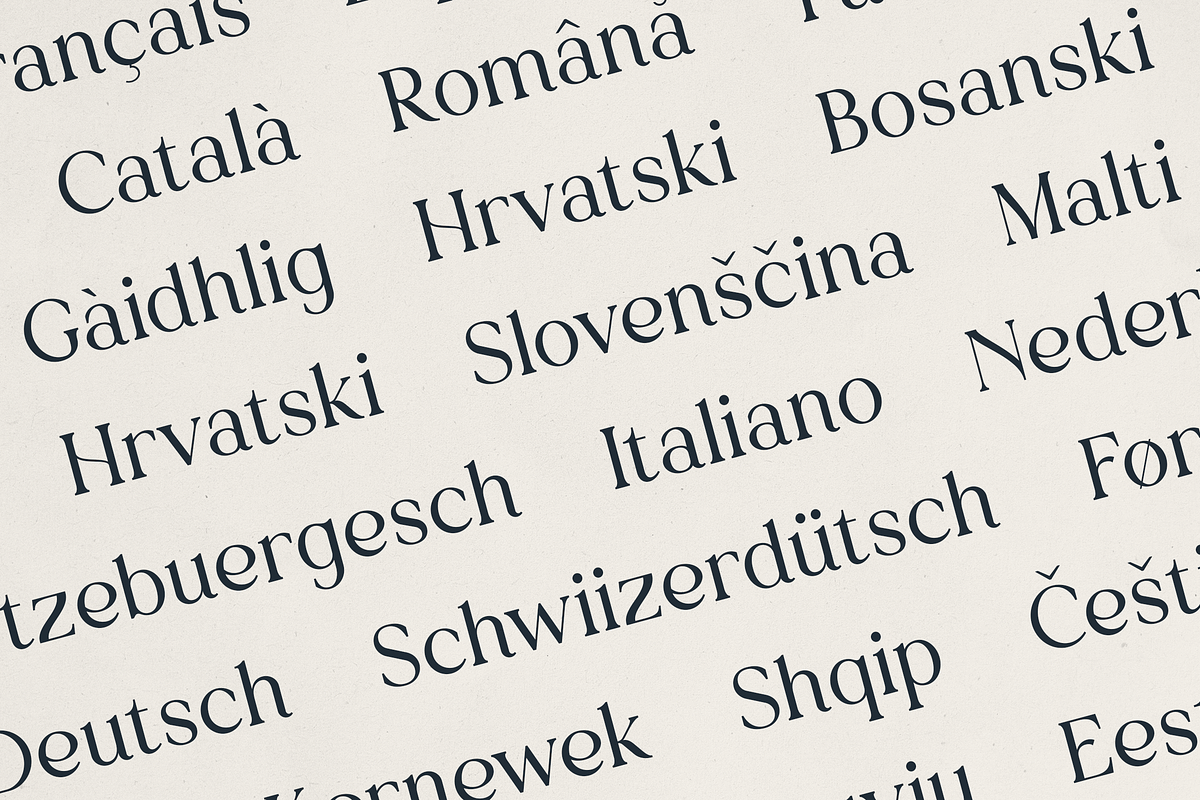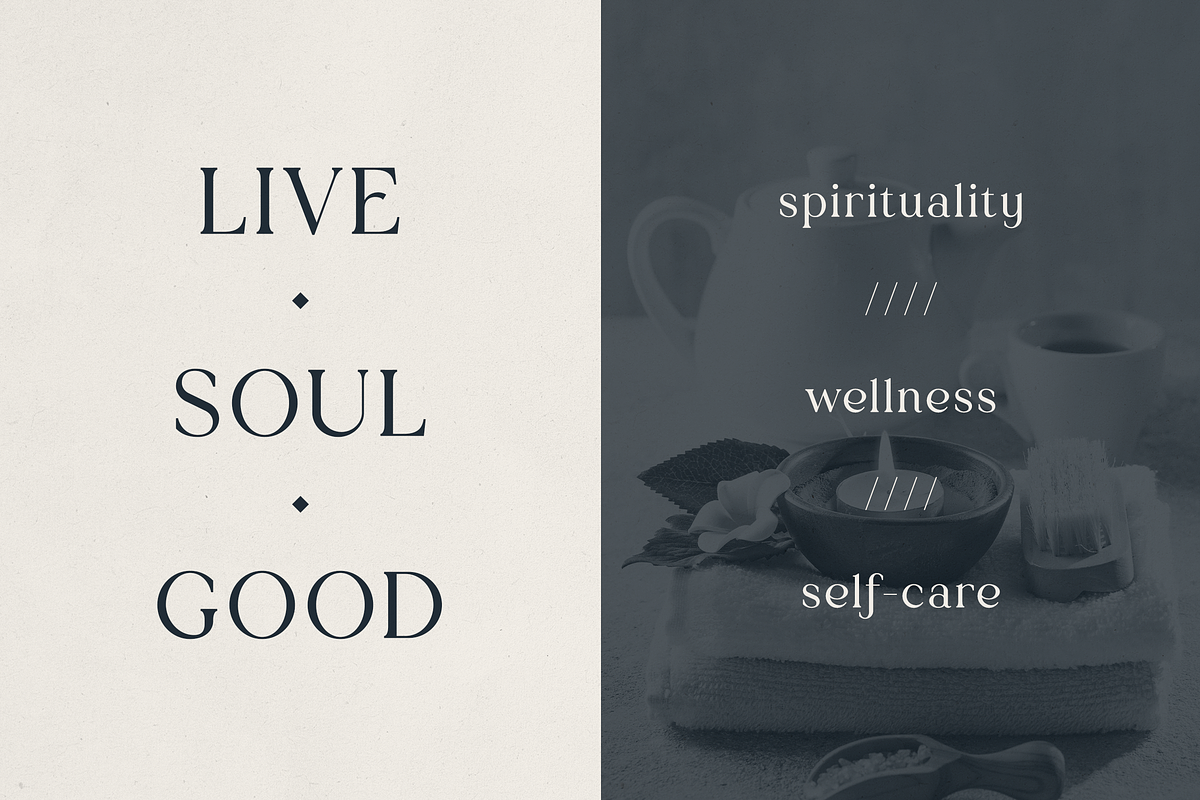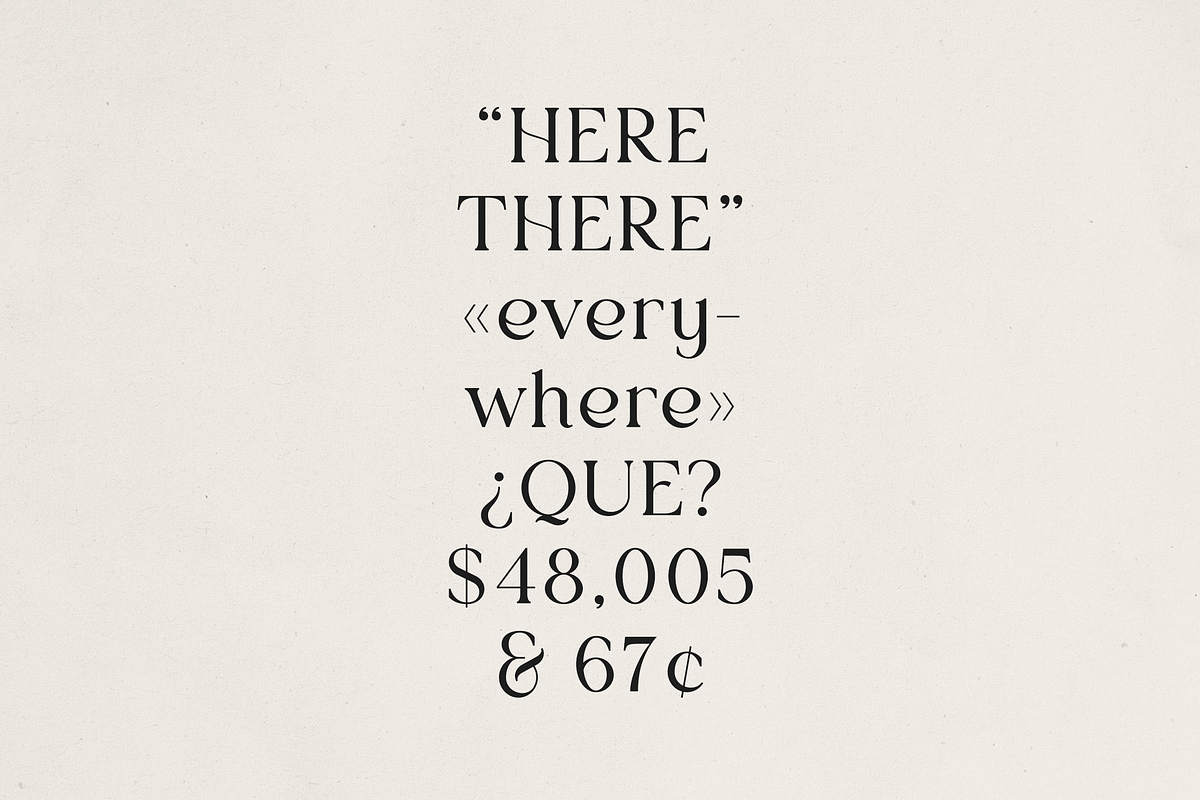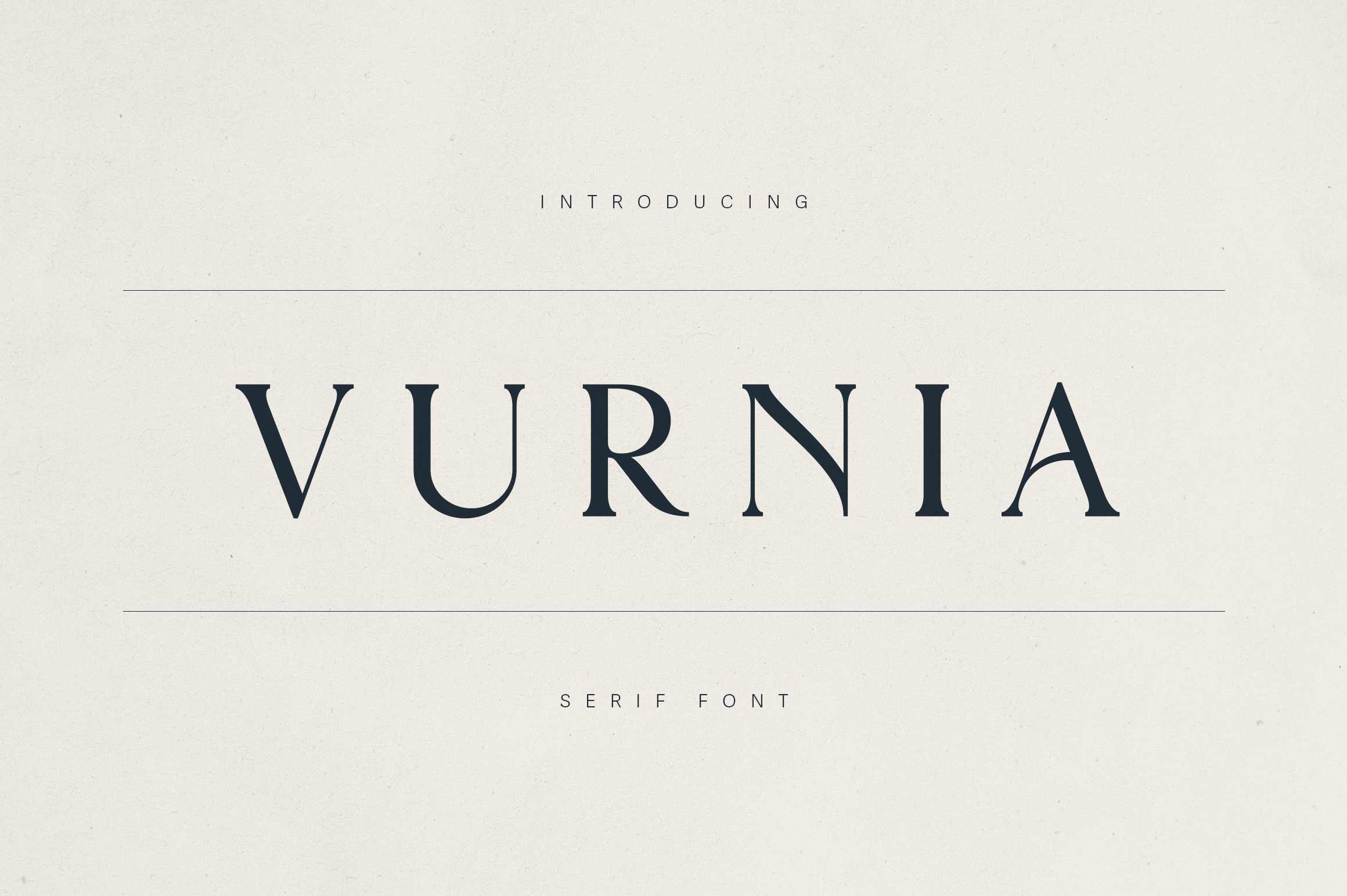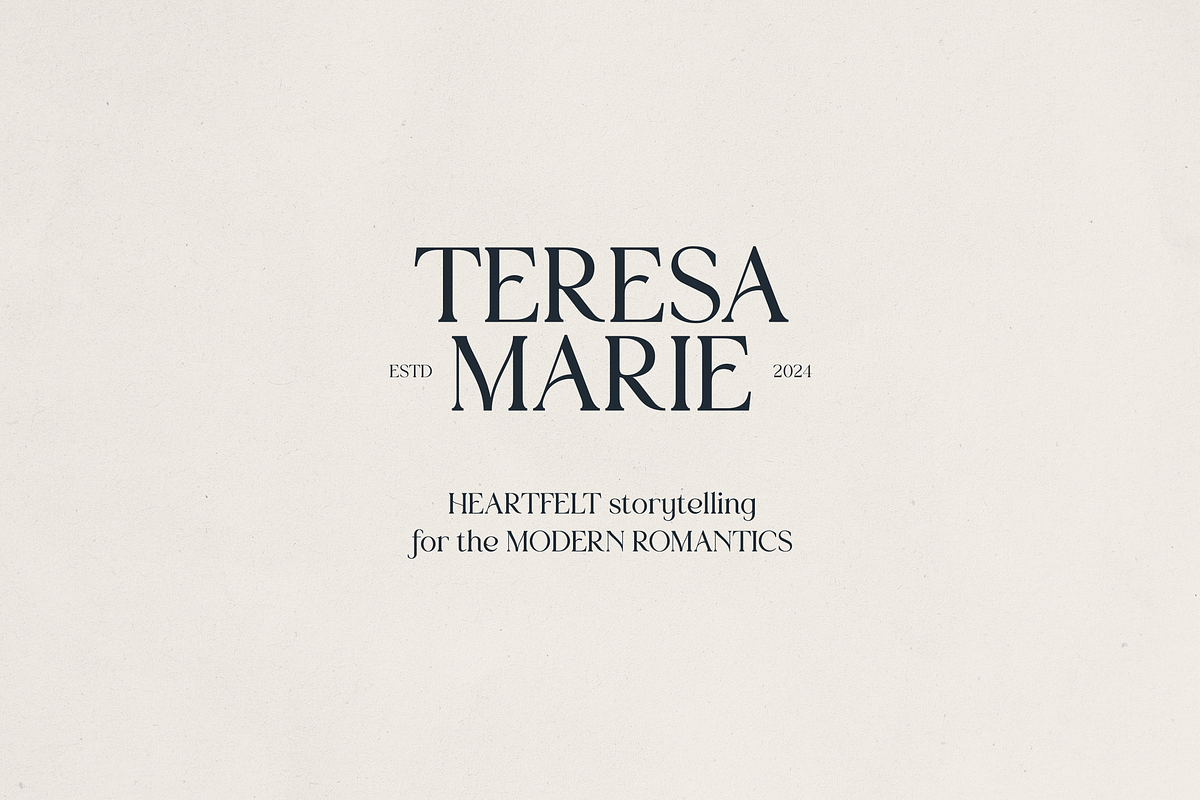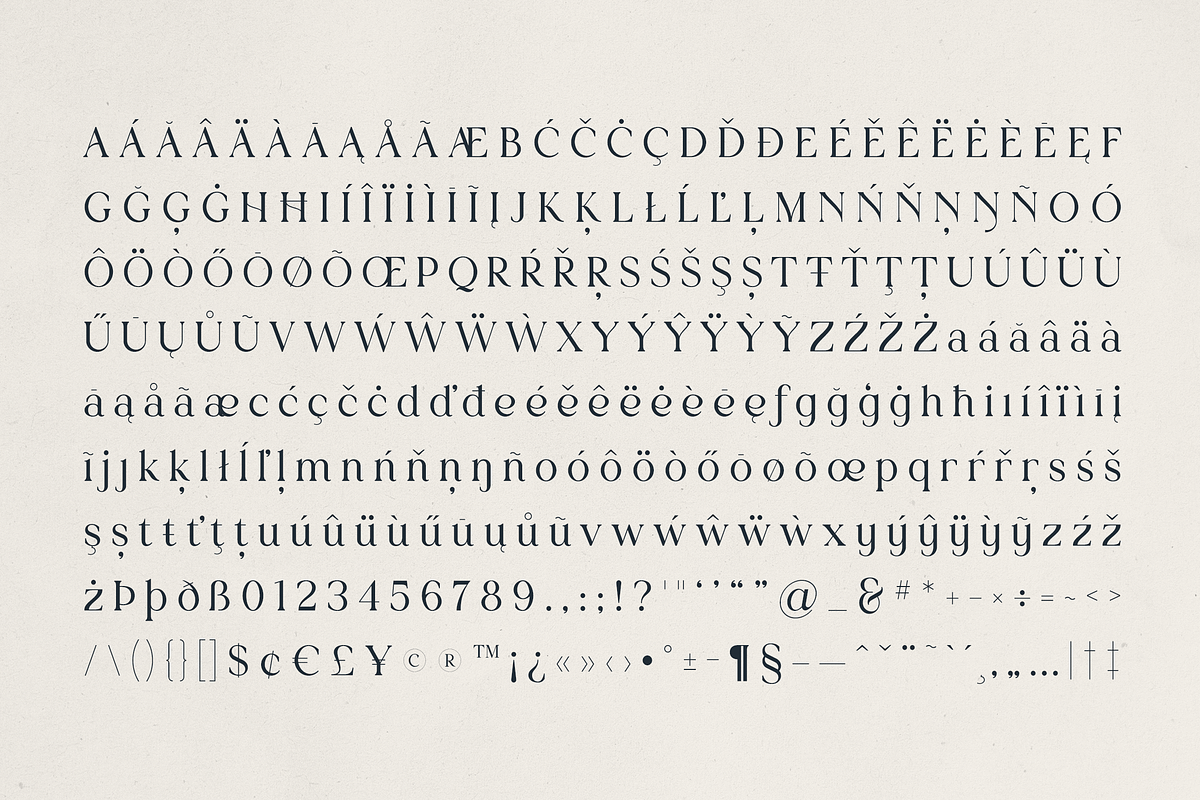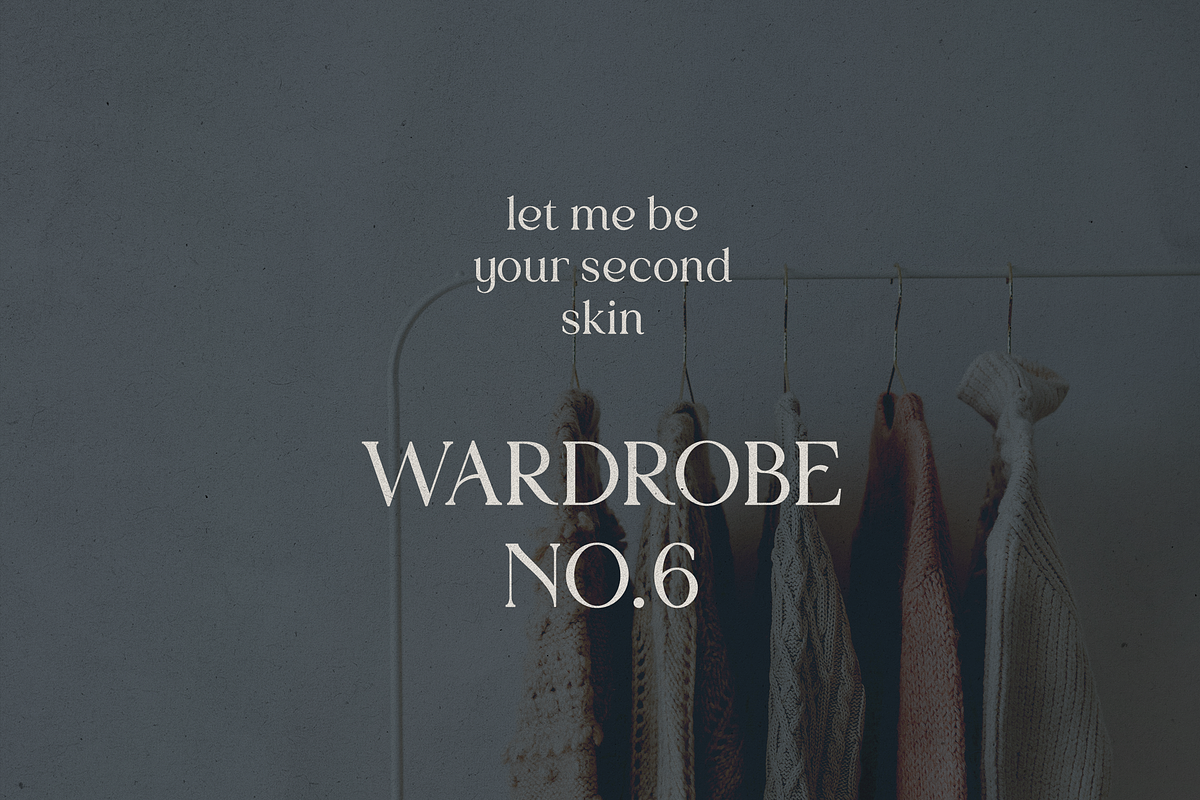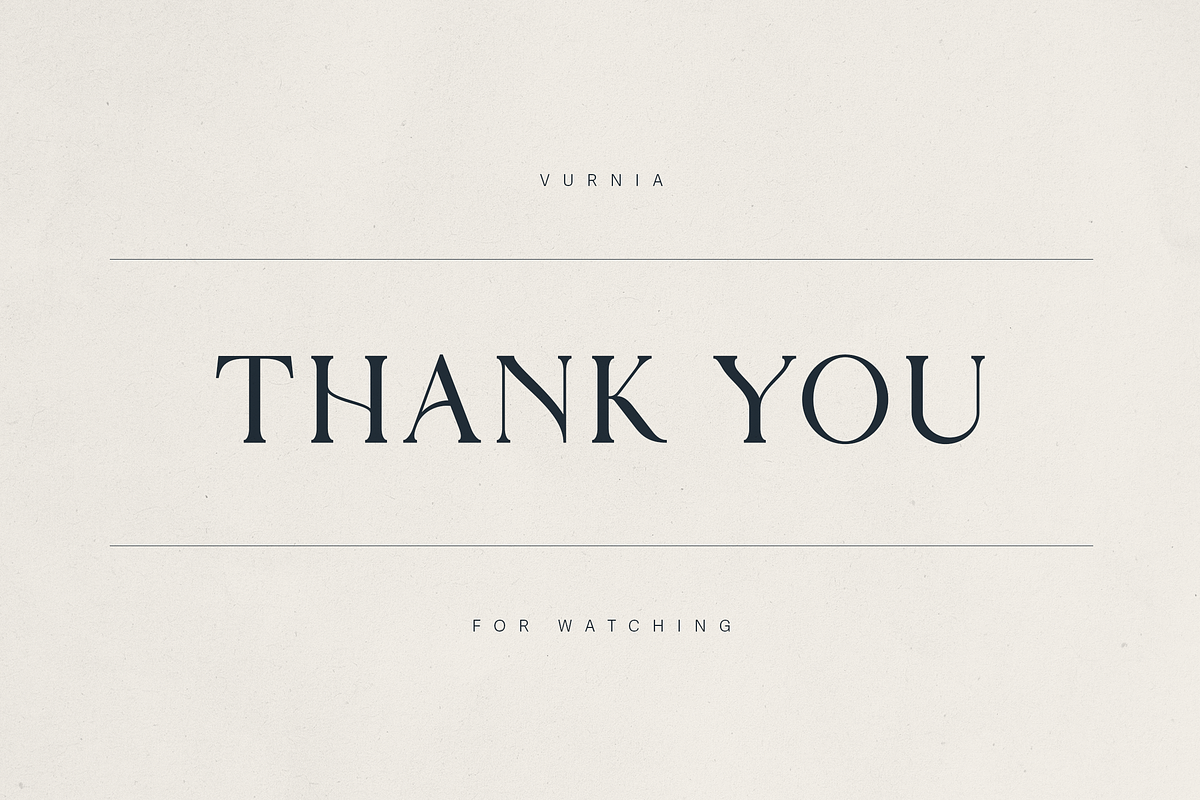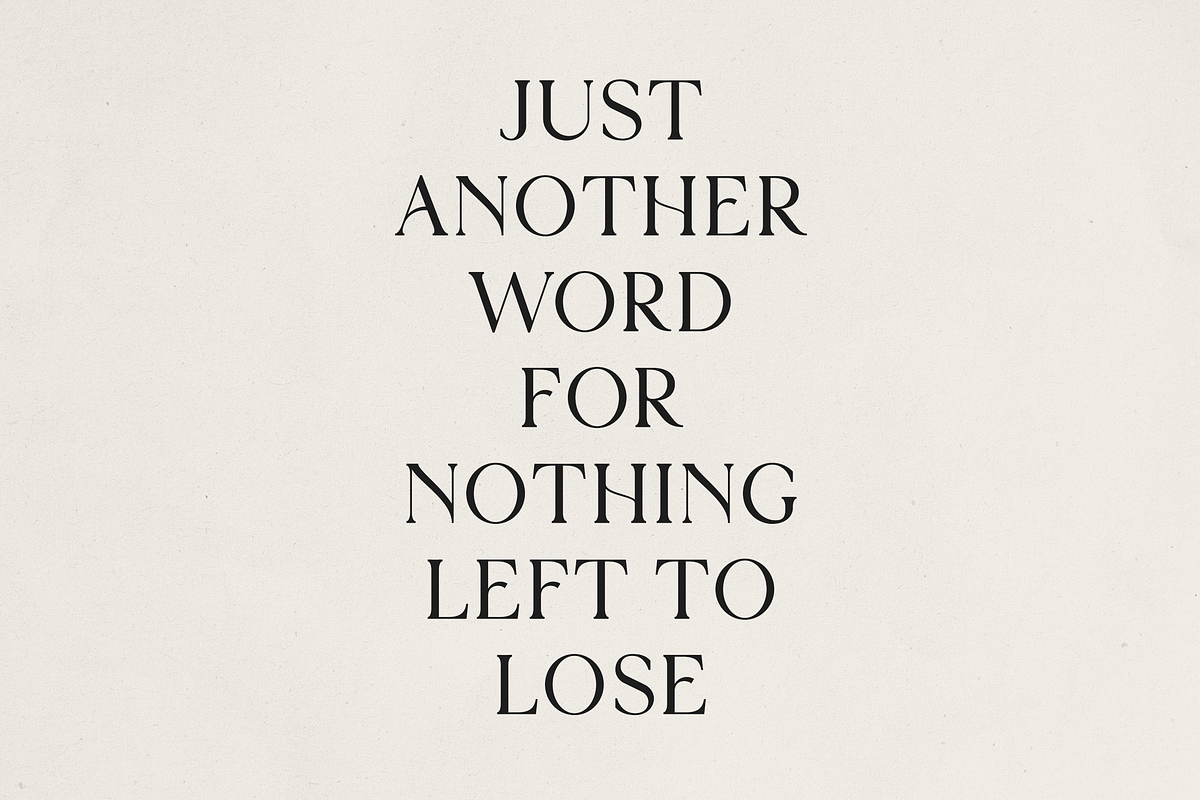
Vurnia – Elegant Serif Font
Vurnia – Elegant Serif Font for Timeless Branding and Soulful Design
Introducing Vurnia, a refined serif typeface that blends classic charm with modern elegance. Perfect for wellness brands, creative professionals, fashion labels, and soulful storytelling, Vurnia delivers high-end sophistication with graceful curves, sharp serifs, and exceptional legibility.
This versatile font supports over 80 languages making it ideal for logos, editorial layouts, packaging, social media, and refined brand identities. Whether you're designing for spirituality, photography, fashion, or lifestyle, Vurnia adds a romantic yet contemporary touch to every project.
- High-contrast serif style with timeless appeal
- Multilingual support (Latin + extended)
- Ideal for luxury branding, packaging, quotes, and editorial use
Elevate your design language with the subtle sophistication of Vurnia—a serif made for the modern romantic.